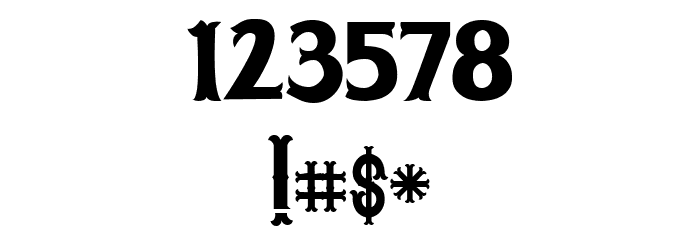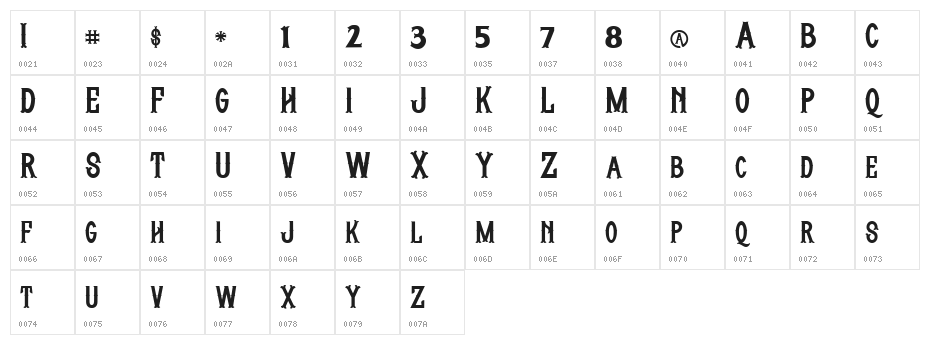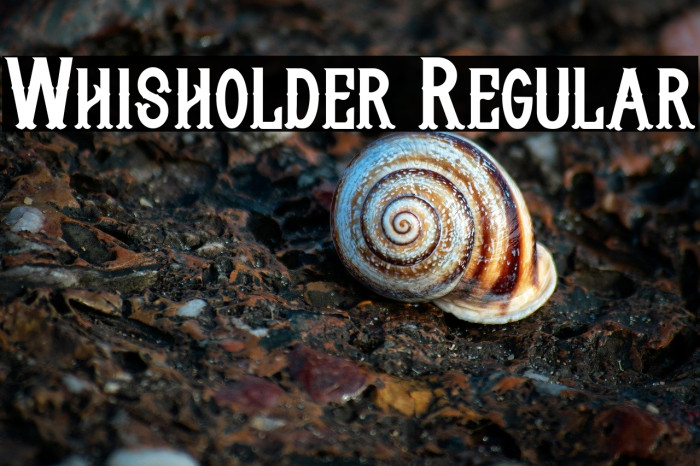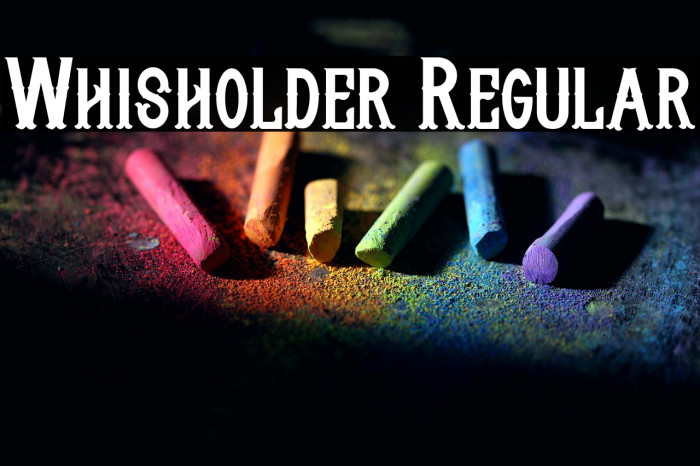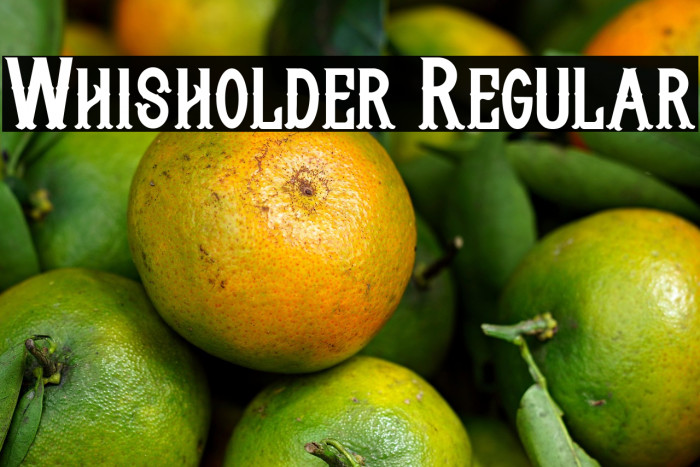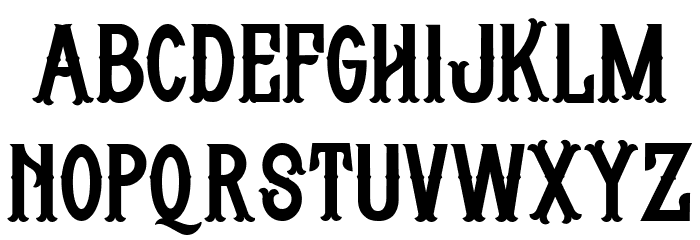
Whisholder Regular Font
Whisholder Regular Description
This font features a bold and decorative style with a vintage flair. The uppercase letters are characterized by their thick strokes and unique serifs that give a sense of strength and elegance. The numbers and special characters maintain the same boldness, ensuring consistency across all glyphs. The design is reminiscent of old western typography, making it ideal for projects that require a touch of nostalgia or a strong visual impact.
| Proposed Projects | Ideal for posters, logos, branding, and any design requiring a vintage or western theme. |